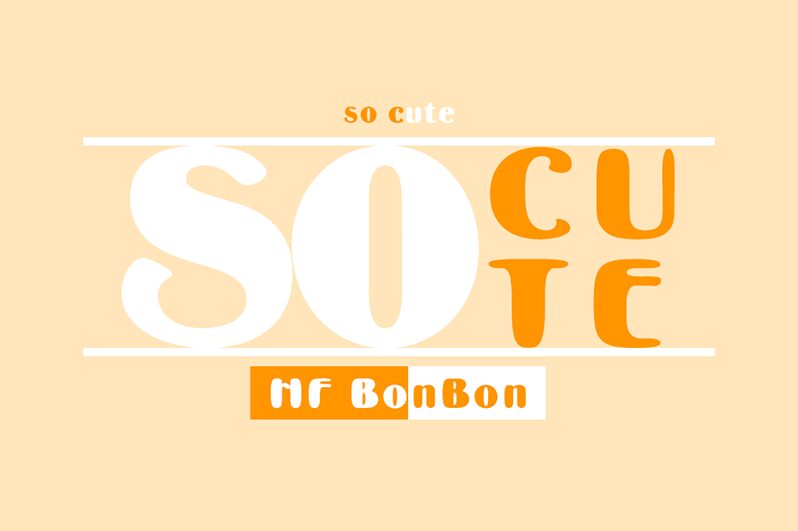
HFBonBon
HF BonBon, designed by HyFont Studio, is a display font that packs a punch with its extra-bold weight. This font boasts a strong and confident style that is perfect for projects that require bold statements. From eye-catching headlines to impactful logos and branding materials, HF BonBon will make your message stand out in the crowd. Its unique shape and style make it an ideal choice for fashion magazines, product packaging, and advertising campaigns. With its captivating appearance, HF BonBon is sure to leave a lasting impression on your audience.